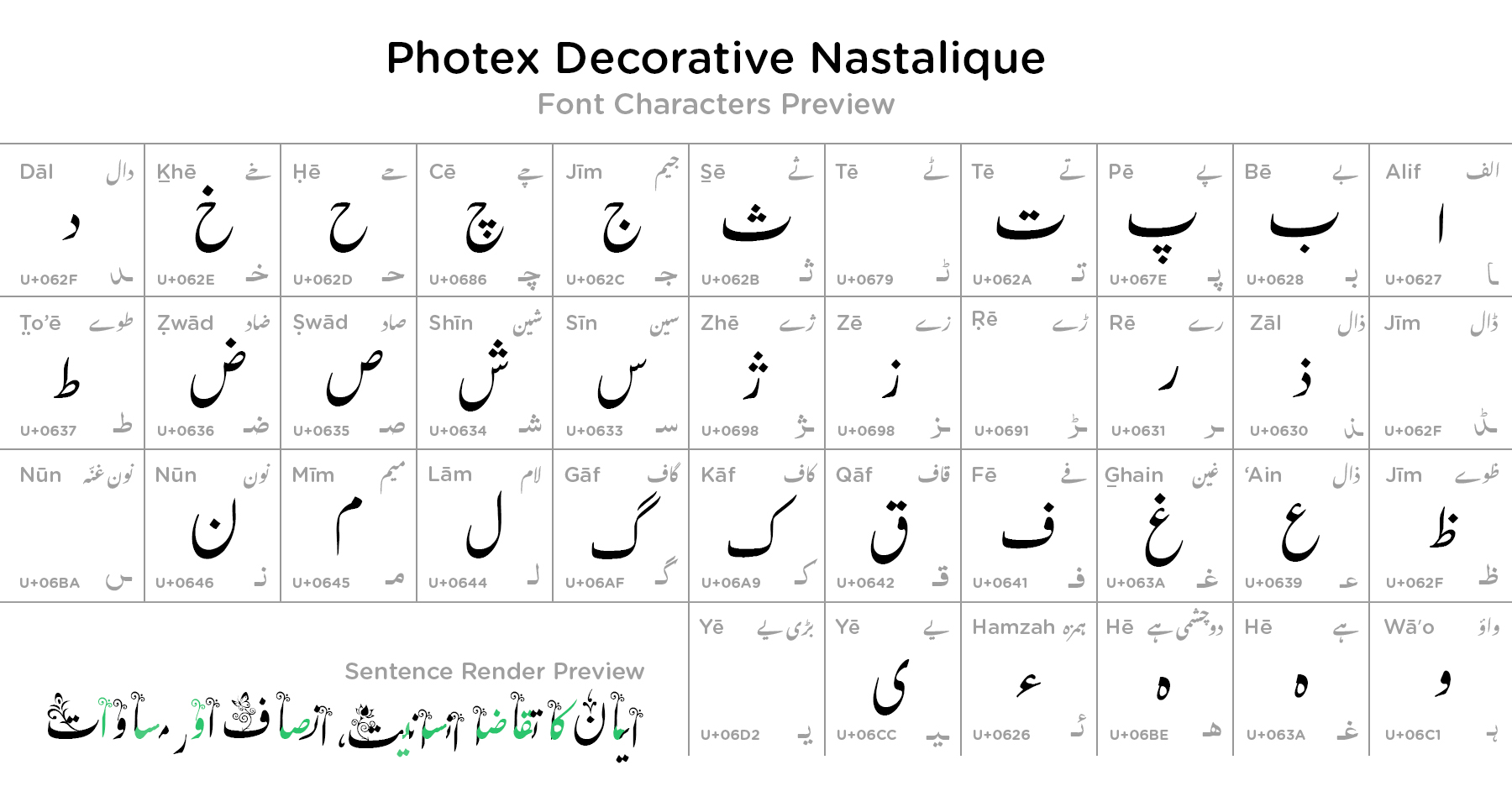
Photex Decorative Nastaleeq is a decorative typeface that is used to adorn your basic text with its carefully crafted composition. It has an unusual flower-like style that makes your simple Urdu text look more eye-catching and elegant. It has beautifully designed soft curves and a solid stroke that make Urdu typography look fancy and impactful. The font is a decorative Nastaleeq style with integrated floral designs, drawing inspiration from the elegance of Nastaleeq calligraphy. It features swirls, flourishes, and floral motifs intricately woven into letters for a stunning effect. The strokes vary in thickness, adding depth to the design.